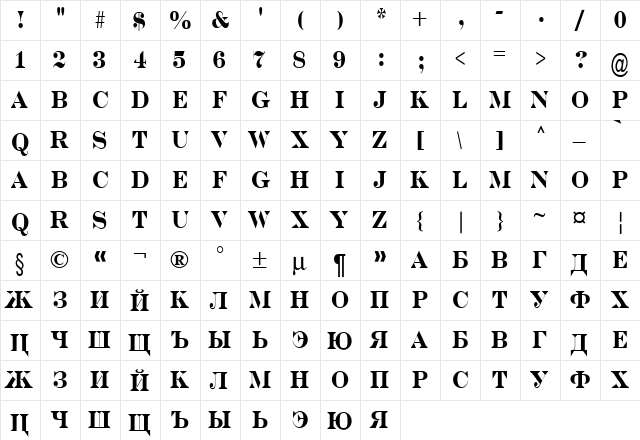
a_SeriferNr Bold
Design Context for a_SeriferNr Typeface
a_SeriferNr carries the refined structure of traditional serif typography, with bracketed terminals and considered proportions that communicate credibility and craft. The heavy weight commands attention and anchors typographic hierarchies.
Pro Tip: Use a_SeriferNr for editorial body copy and considered headline work. Pair with a neutral sans for UI elements or captions to create a classic hierarchy.